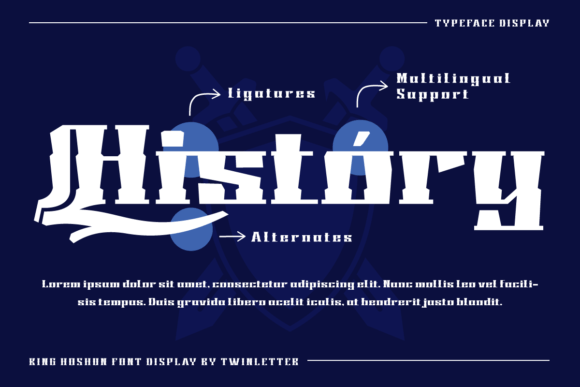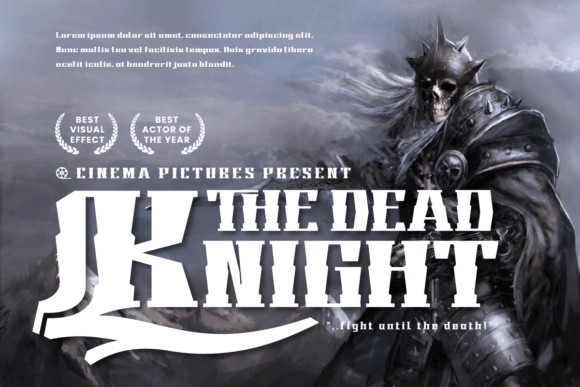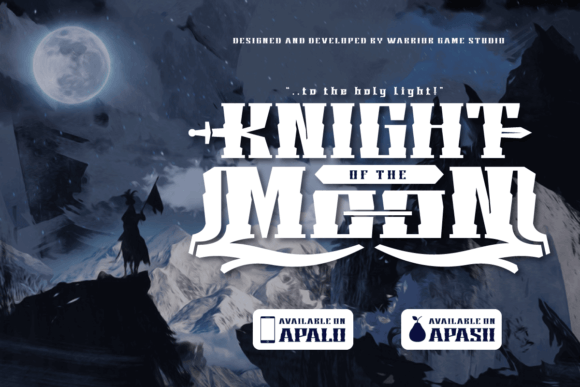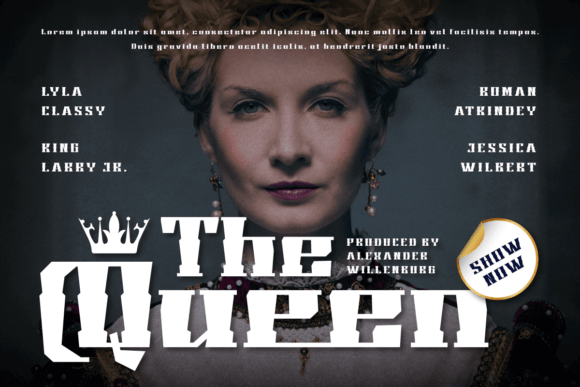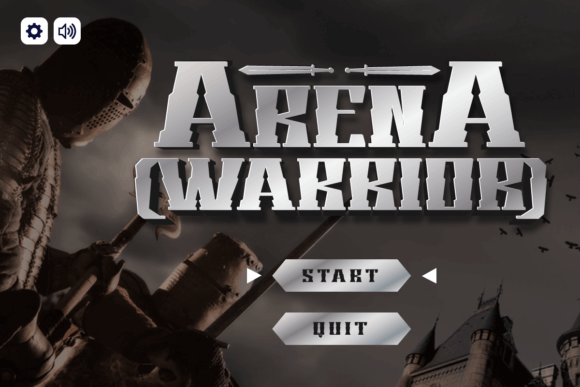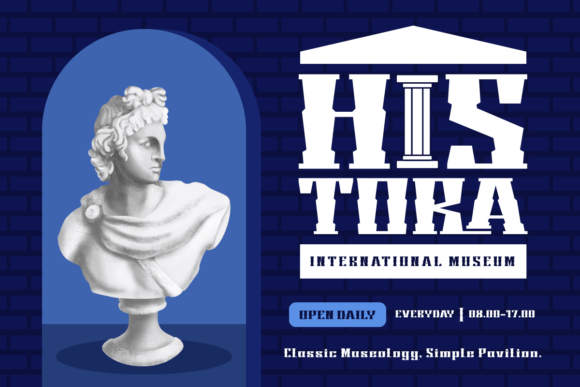
Unleash the Power of Your Designs with King Hoshun Font
Have you ever sat at your desk, staring at a blank canvas, trying to come up with the perfect concept for a project? The excitement and pressure of bringing a new idea to life can be overwhelming, but what if you had the right tool to take your creativity to the next level? Enter King Hoshun, a display font that embodies the spirit of a superhero, ready to save the day and take your projects to new heights.
With its bold, action-packed theme, King Hoshun Font is the perfect choice for designers looking to make a statement. Whether you’re working on a movie, game, or bold design, this font is sure to leave a lasting impression. Its impressive look and special features, including ligatures and alternative characters, will give you the edge you need to stand out from the crowd.
- Font Family: King Hoshun is a typeface with a unique, ornate design, suitable for various applications such as signage, titles, and body text.
- Resolution: King Hoshun is designed to be legible at high resolutions, making it ideal for use in digital applications such as websites, mobile apps, and digital signage.
- Unique Characteristics: King Hoshun features intricate details, ornate flourishes, and a mix of modern and traditional elements, setting it apart from other typefaces.
King Hoshun Font Review
Overall, I have mixed feelings about the King Hoshun Font. It’s a unique, hand-drawn font that can be a great addition to your design projects, but it also has some limitations.
- ✨ Unique and creative design: King Hoshun Font is perfect for projects that need a personal touch and a bit of whimsy.
- ✨ Great for titles and headings: The font’s bold and playful nature makes it ideal for titles, headings, and other display text.
- ✨ Versatile: King Hoshun Font can be used in a variety of design contexts, from digital to print.
- ⚠️ Limited legibility: The font’s intricate design can make it difficult to read in certain contexts, especially in small sizes.
- ⚠️ Not suitable for body text: King Hoshun Font is best used for display text, as it can be tiring to read in large blocks of text.
- ⚠️ Limited language support: The font may not support all languages, which can be a limitation for designers working on international projects.
While King Hoshun Font has its limitations, it can be a great addition to your design toolkit when used judiciously. With its unique design and versatility, it’s perfect for projects that need a bit of personality and flair.
Tips for Getting the Most Out of King Hoshun Font
For optimal results, use King Hoshun Font in bold or italic styles to add emphasis to your text. Experiment with different font sizes and colors to create a visually appealing design. Use King Hoshun Font in combination with other fonts to add variety and interest to your text.
King Hoshun Font is commonly used for titles, headings, and body text in creative and artistic designs. It’s also suitable for use in logos, branding materials, and other visual identity elements.